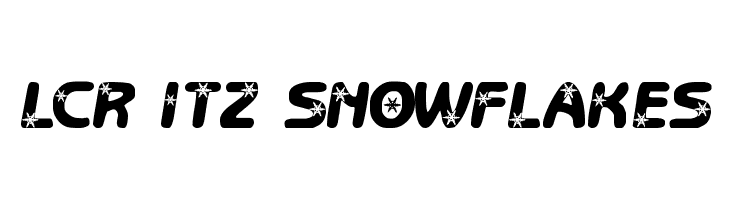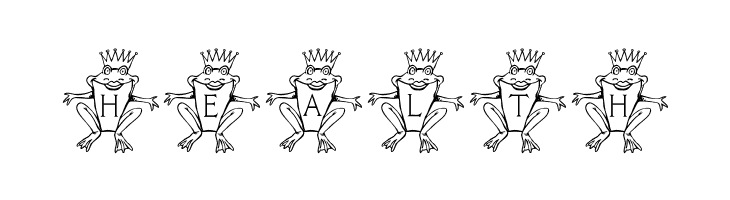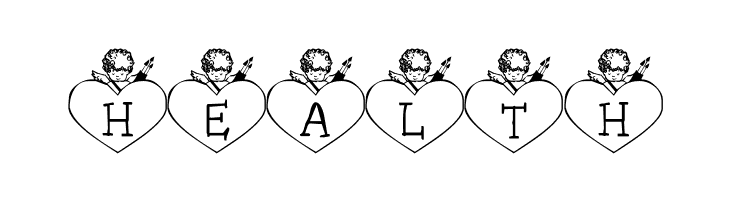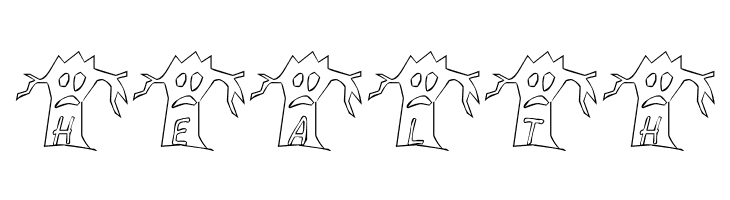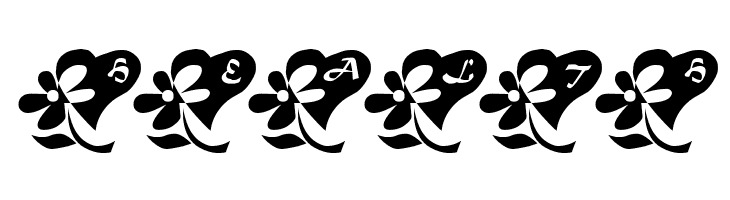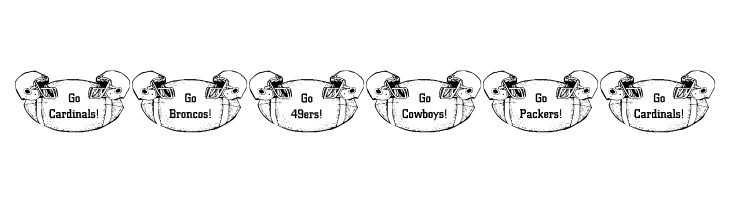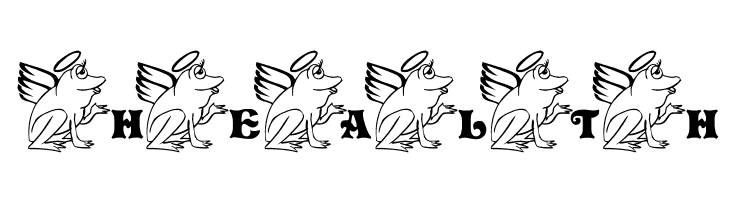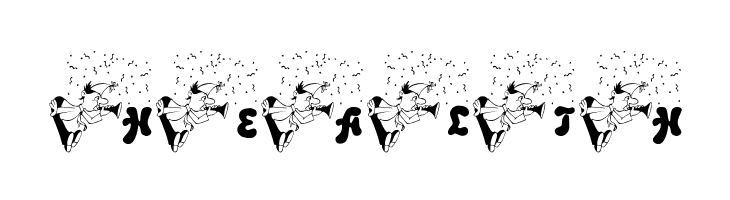
A whimsical, frog-themed decorative font perfect for playful designs.
A decorative font with characters inside heart shapes topped by cupids.
A whimsical, spooky font with characters resembling haunted trees.
A decorative font with characters inside heart shapes with floral accents.
A decorative font featuring football helmet-themed characters, perfect for sports designs.
A playful, decorative font featuring angelic frogs alongside bold characters.
A novelty font made up of assorted decorative frame outlines.
A decorative font with characters inside heart shapes adorned with roses.
A playful, party-themed decorative font with bold, festive characters.
A bold, decorative font with snowflake motifs for a festive look.